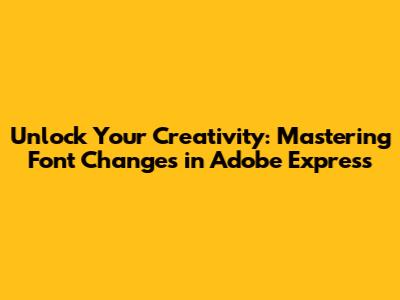
Hey guys! Ever found yourself staring at a design in Adobe Express, thinking, "This needs a little something extra?" Well, you're in the right place! Today, we're diving deep into the super simple, yet incredibly powerful, world of changing fonts in Adobe Express. Whether you're a seasoned designer or just starting out, knowing how to swap out fonts can totally transform your projects, giving them that professional polish or that unique personal touch. Adobe Express is all about making design accessible, and that absolutely includes fonts. We're going to cover everything from the basics of selecting and applying new fonts to exploring some pro tips that will make your text pop. Get ready to make your words work harder for you and bring your creative visions to life with the perfect typography. Let's get this design party started!
The ABCs of Font Selection in Adobe Express
First things first, let's get down to the nitty-gritty of how to change a font in Adobe Express. It's honestly as easy as a few clicks. When you're working on your design, you'll see your text layer. Select that text, and boom! A toolbar should pop up right there on your screen, giving you all the options you need. Look for the font dropdown menu – it’s usually right at the top of this toolbar. Click on it, and you'll see a whole universe of fonts waiting for you. Adobe Express comes loaded with a fantastic library of fonts, so you're not limited by any means. You can browse through categories, use the search bar if you know exactly what you're looking for, or just scroll and see what catches your eye. Once you find a font you love, simply click on it, and watch your text magically transform right before your eyes. It’s that straightforward! This immediate feedback loop is one of the best things about Adobe Express; you can try out a bunch of different fonts in seconds without committing. This makes experimentation a breeze, and trust me, experimenting with typography is where the real magic happens. Don't be afraid to try something a little wild or completely unexpected – you never know what might spark the perfect aesthetic for your design. Remember, the font is a huge part of your message’s personality, so choose wisely but also have fun with it!
Diving Deeper: Advanced Font Customization
Okay, so you've mastered the basics of swapping out fonts. What's next, you ask? Well, Adobe Express doesn't just stop at letting you change fonts; it lets you tweak them to perfection. Once you have your desired font selected, look around that same text toolbar. You'll often find options for font size, color, alignment, and spacing. Let's talk about spacing, because this is where a lot of designers level up their game. You can often adjust the kerning (the space between individual letters) and the leading (the space between lines of text). Getting these just right can make a huge difference in readability and overall aesthetic. For example, tightly kerned headlines can feel bold and impactful, while looser kerning can give a more airy, elegant feel. Similarly, adjusting line spacing can prevent text from feeling cramped or too spread out. Don't forget about font style too! Many fonts come with different weights (like bold, light, regular) or styles (like italic). You can usually access these directly from the font selection dropdown or a separate style option. Experimenting with these variations within the same font family can create sophisticated typographic hierarchies without needing multiple, clashing fonts. It's all about refining the details. These subtle adjustments are what separate a good design from a great one, guys. Play around with these settings; there’s no right or wrong, only what looks best for your specific project. And remember, readability is key – no matter how cool your custom spacing looks, if people can't easily read your text, it’s not doing its job.
Leveraging Adobe Fonts for Express Designs
One of the biggest advantages of using Adobe Express is its seamless integration with Adobe Fonts. If you're not already familiar, Adobe Fonts is an incredible service that gives you access to a massive library of high-quality, licensed fonts that you can use across all Adobe applications, including Express. When you're in the font selection menu in Adobe Express, you'll often see an option to "Browse Adobe Fonts" or a similar prompt. Clicking this will open up the full Adobe Fonts catalog. The beauty here is that if you find a font you like that isn't already active on your system, you can activate it right then and there with a single click. Once activated, it will become available for use in Adobe Express, and indeed, all your other Adobe apps. This is a game-changer for accessing a truly professional and diverse range of typography. Think of it like unlocking a secret vault of amazing fonts that can elevate your designs instantly. When changing fonts in Adobe Express, prioritizing those from the Adobe Fonts library ensures you're using high-quality, often beautifully designed typefaces that are optimized for web and print. Plus, you don't have to worry about licensing issues, which is a huge relief for many users. So, next time you're hunting for that perfect font, make sure you explore the Adobe Fonts integration – your designs will thank you for it!
Importing Your Own Fonts: Taking Control
What if you have a super specific font in mind, maybe a brand font or a unique typeface you downloaded elsewhere? Good news, guys! Adobe Express also allows you to upload your own fonts. This feature gives you ultimate control over your brand's visual identity. To do this, you'll typically need to navigate to the 'Text' tool or the font management area within Adobe Express. Look for an option like "Upload Font" or "Add Custom Font." You'll usually need to have the font file on your computer (often in TTF or OTF format). Simply select the font file, upload it, and voilà – your custom font will be added to your available font list in Adobe Express. This is absolutely crucial for businesses that need to maintain brand consistency across all their marketing materials. Imagine creating social media graphics, flyers, or web banners, all using your exact brand font, without any compromises. It really makes your projects look cohesive and professional. Just a heads-up, make sure you have the proper license to use and upload any custom fonts you plan to use, especially for commercial projects. Once uploaded, treat it just like any other font in the library – select your text, choose your uploaded font from the list, and start designing. This flexibility is what makes Adobe Express such a powerful tool for both personal and professional use.
Pro Tips for Font Pairings and Hierarchy
Alright, let's elevate your font changing in Adobe Express game even further with some pro tips on font pairing and creating typographic hierarchy. Choosing the right fonts is one thing, but making them work together harmoniously is an art. A good rule of thumb is to pair a serif font (the ones with little feet, like Times New Roman) with a sans-serif font (the clean, modern ones without feet, like Arial or Helvetica). This contrast creates visual interest while maintaining readability. For example, use a bold serif for your main headline to grab attention, and then a clean sans-serif for the body text to make it easy to read. Another strategy is to pair fonts from the same font family but in different weights or styles. This creates a cohesive look that’s still dynamic. When it comes to hierarchy, you want to guide the reader's eye. Use different font sizes, weights, and colors to distinguish between headings, subheadings, and body text. The most important information should be the most prominent. Don't be afraid to use italics or different colors sparingly for emphasis, but always keep your audience in mind. Overdoing it can lead to a chaotic and unprofessional look. Think about the overall mood you want to convey. A script font might be great for a wedding invitation, while a strong, blocky font is better for a sports poster. Experimentation is key, but always step back and look at your design from a distance to ensure it’s balanced and legible. These techniques will help you create designs that are not only visually appealing but also effectively communicate your message. Guys, mastering typography is like having a superpower in design, and Adobe Express gives you all the tools to wield it!
Final Thoughts: Make Your Text Sing!
So there you have it, folks! We've journeyed through the essentials and even some advanced techniques for how to change fonts in Adobe Express. From the simple click-and-select process to customizing spacing, leveraging the vast Adobe Fonts library, uploading your own typefaces, and mastering the art of font pairing, you're now equipped to make your text truly shine. Remember, typography isn't just about choosing pretty letters; it's about conveying emotion, ensuring clarity, and strengthening your overall message. Adobe Express makes this process accessible and enjoyable, empowering you to create designs that are not only beautiful but also effective. Keep experimenting, keep learning, and most importantly, keep creating. Happy designing, everyone!